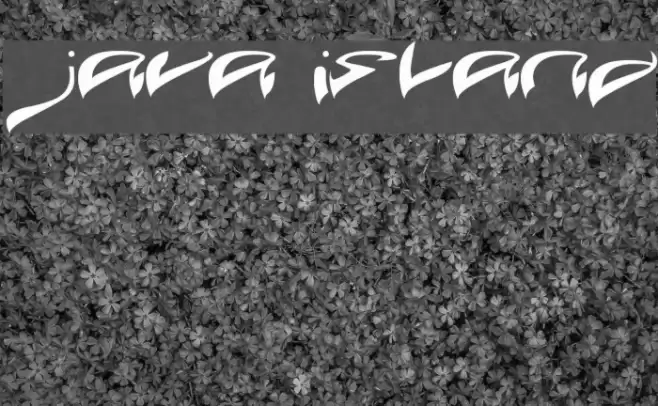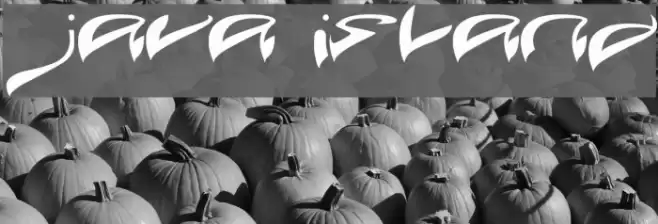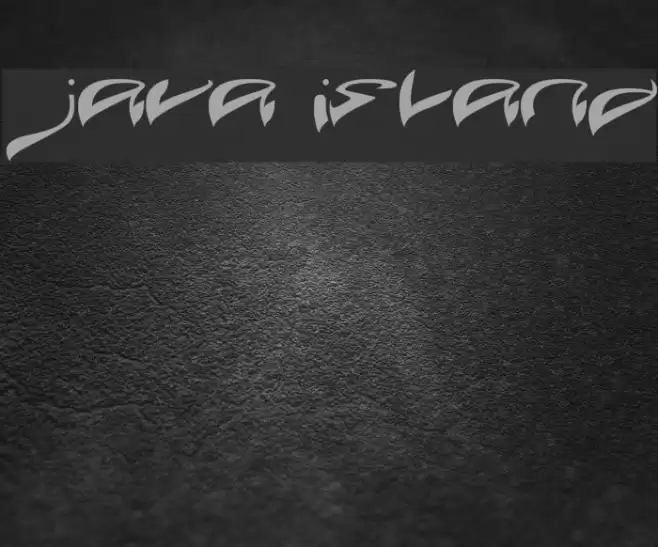
JAVA ISLAND Font
JAVA ISLAND Description
This font features a bold and dynamic script style with sharp, angular strokes that give it a modern and edgy appearance. The letters are closely connected, creating a fluid and continuous flow. The uppercase and lowercase characters maintain a consistent style, with exaggerated curves and pointed edges that add a sense of movement and energy. The numbers and special characters follow the same design principles, ensuring a cohesive look across all elements. This font is ideal for projects that require a strong visual impact and a contemporary feel.
A bold, dynamic script font with sharp, angular strokes and a modern edge from Uncategorized fonts.
- Proposed Projects: Ideal for branding, logos, posters, and any design needing a strong, modern impact.
- Character Spacing: Tight